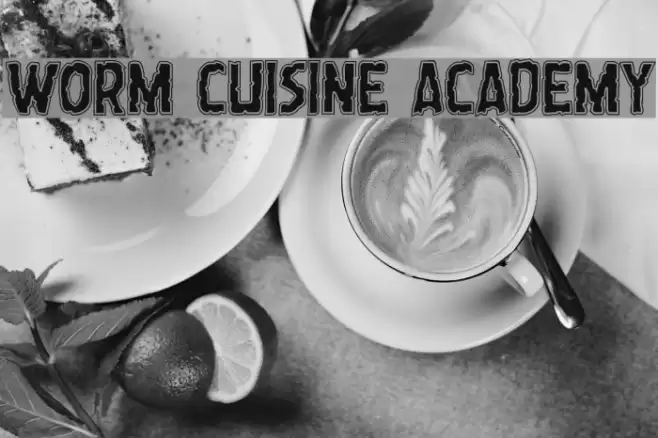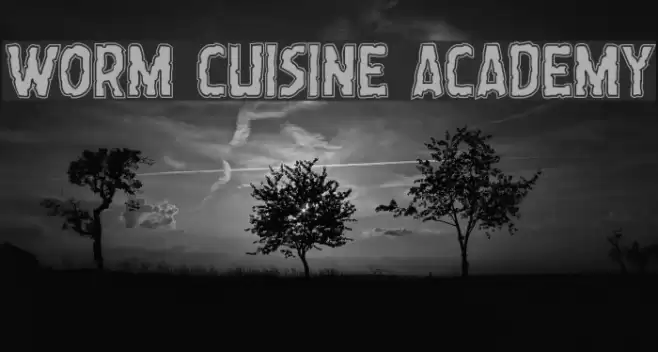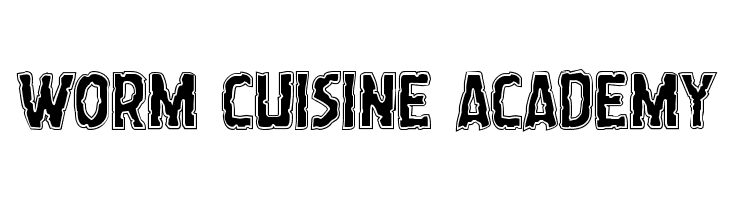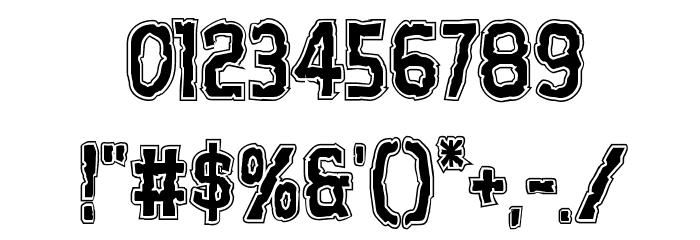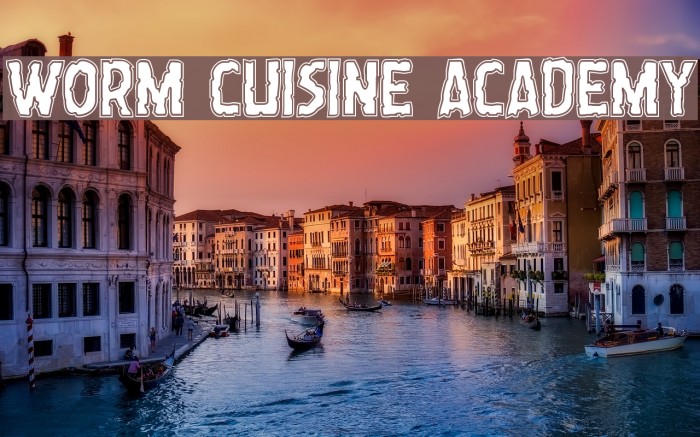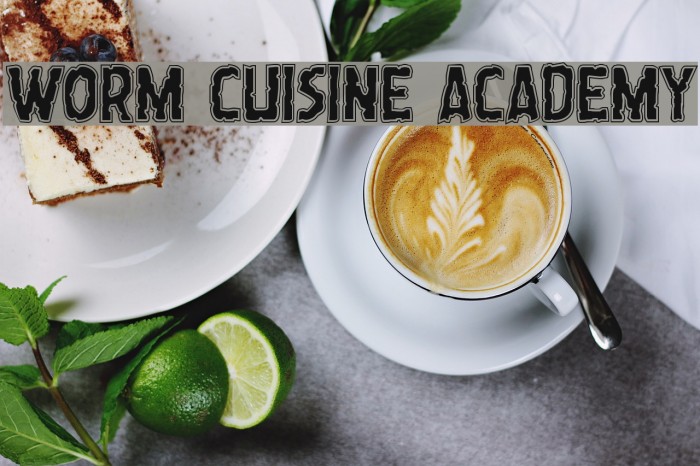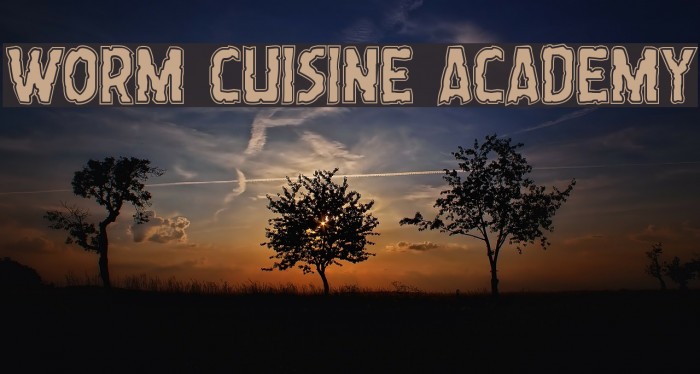
Worm Cuisine Academy Font
Worm Cuisine Academy Description
This font features a bold, rugged design with a distressed, textured appearance. The characters have a thick outline that gives them a three-dimensional look, making them stand out prominently. The style is reminiscent of graffiti or urban art, with an edgy and dynamic feel. Each letter is uniquely crafted with irregular edges, adding to the overall raw and energetic aesthetic. The numbers and special characters follow the same design principles, ensuring consistency across all elements. This font is ideal for projects that require a bold statement or an artistic touch.
A bold, textured font with a rugged, graffiti-inspired design from Uncategorized fonts.
- Proposed Projects: Ideal for street art posters, edgy branding, music album covers, and creative event flyers.
- Overall Style: Urban, Edgy, Artistic